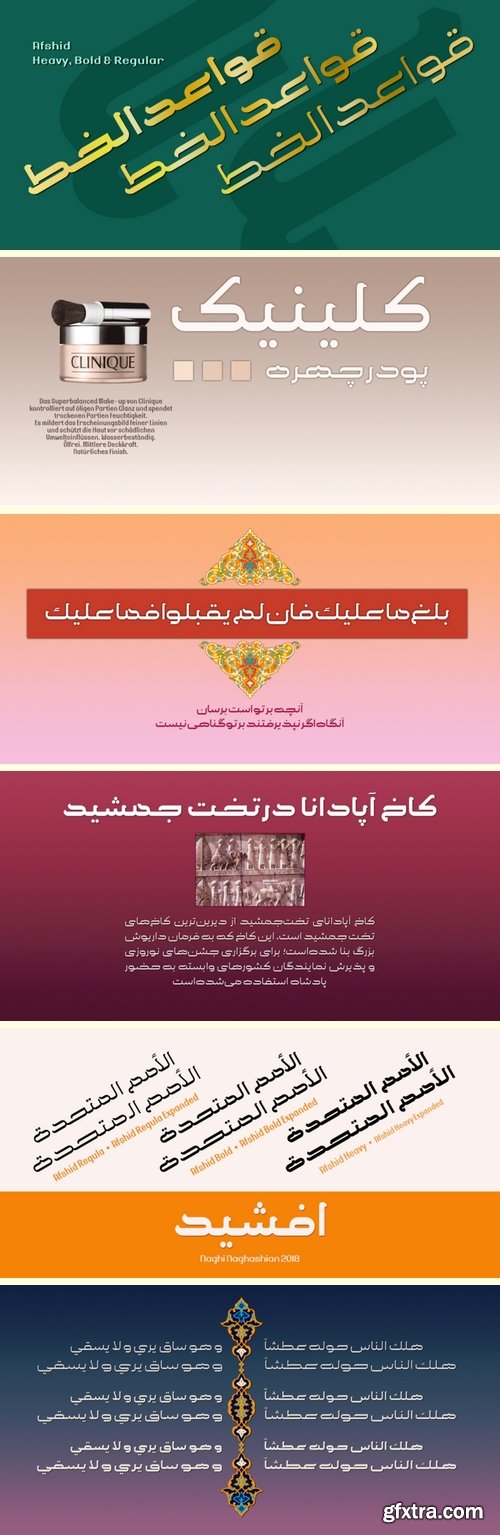
Afshid Font Family - 6 Fonts
Afshid is a sans-serif font family in three weights and tow width. Afshid Regular and Afshid ExpandedRegular, Afshid Bold and Afshid ExpandedBold, Afshid Heavy and Afshid ExpandedHeavy. This font family is a contribution to modernisation of Arabic typography, gives the font design of Arabic letters real typographic arrangement and provides more typographic flexibility. Afshid supports Arabic, Persian and Urdu. It also includes proportional and tabular numerals for the supported languages.